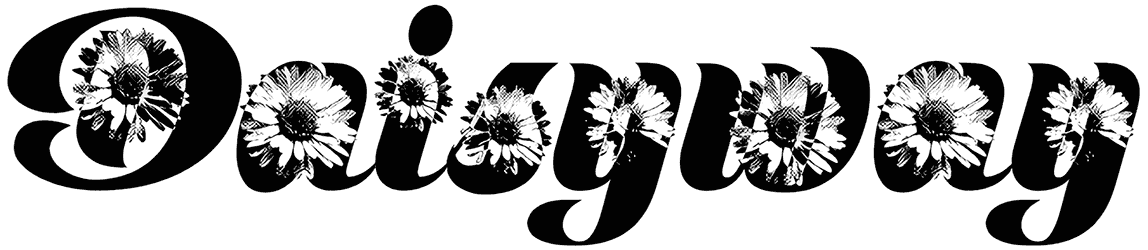
Daisyway Font
Daisyway, a fancy, decorative font, is one of those assets that, when used in your next design project, whether it’s a poster, card, t-shirt, or anything else, will help you stand out from the crowd.
Three overlapping fonts!